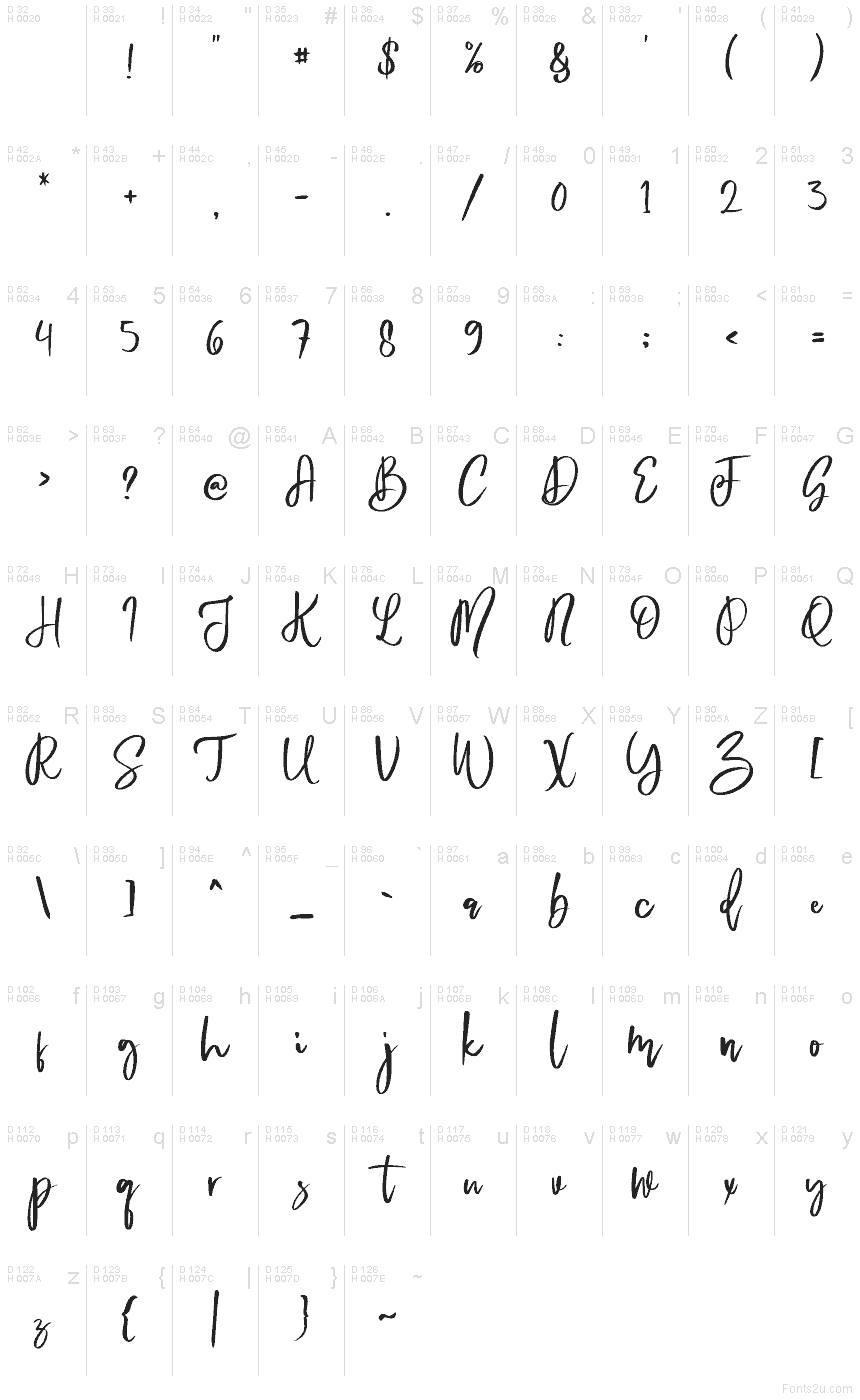
BedmiwocBrush
Bedmiwoc Brush font by Tebaltipis Studio is a natural-flowing, beautifully expressive typeface that embodies casual elegance. It captures the expressive character and artistic flair of authentic handwriting in digital form. This free handwritten font invites attention through its natural ascenders and descenders in an elaborate look.